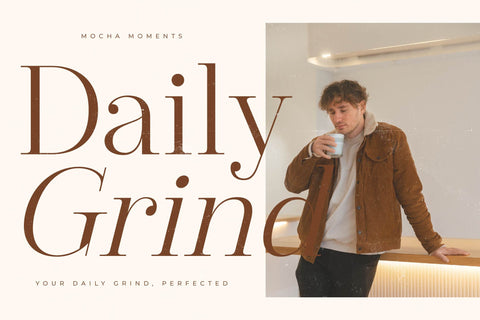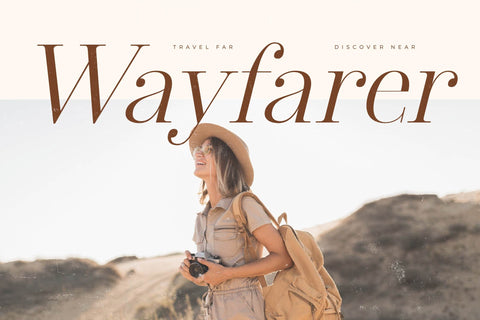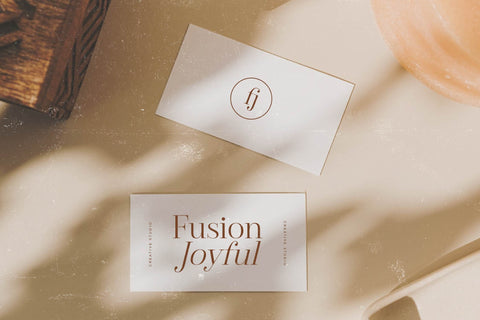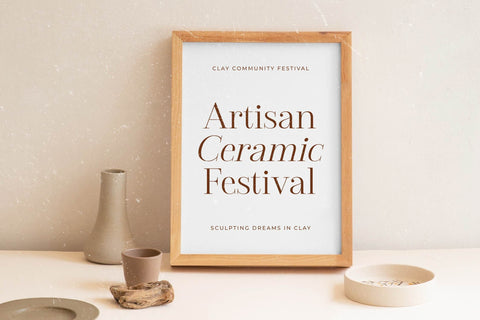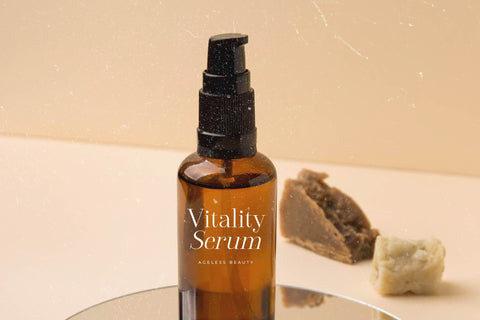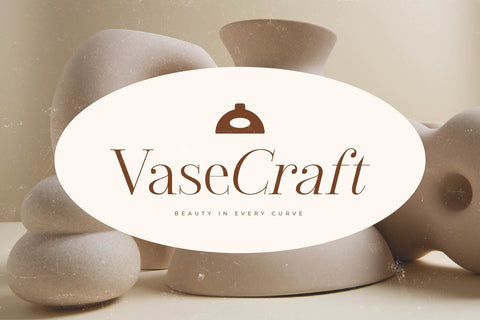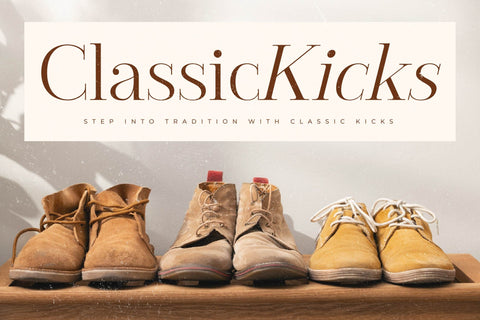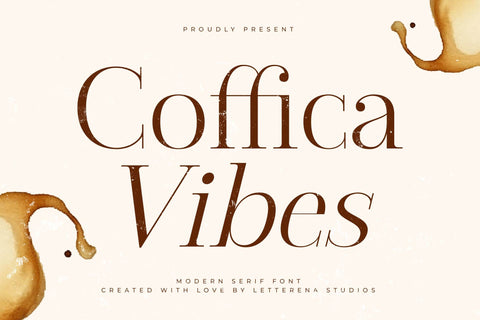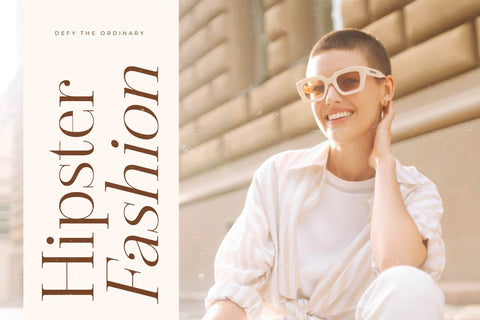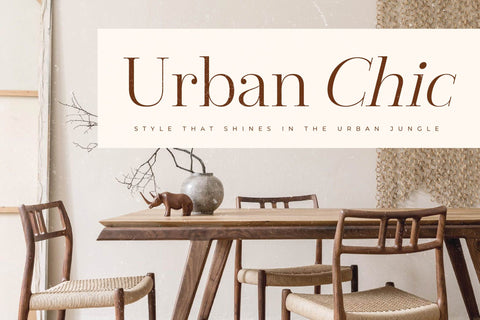
Coffica Vibes - Modern Serif Font
Coffica Vibes - Modern Serif Font , from Letterena, is a Luxury Serif font, suitable for any projects such as: logos, branding projects, homeware designs, product packaging, mugs, quotes, posters, shopping bags, t-shirts, book covers, name card, invitation cards, greeting cards, label, photography, watermark, special events, and all your other luxury and beautiful projects that need a Luxury Serif taste.